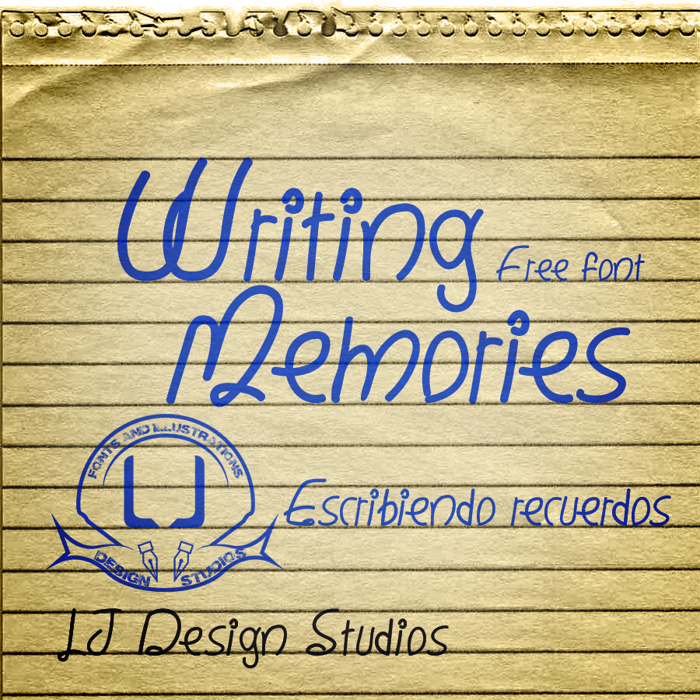
Writing Memories Font
Writing Memories Font is a Handwriting font and was created on . Since then, it has been downloaded 2,120 times and added to 41 collections. 2 people have liked Writing Memories Font and given it a thumbs up.
This typeface was designed to be used on the android platform as variable source for applications, custom font, font or default font recursive device.
Esta fuente tipográfica fue diseñada para ser usada en la plataforma android como variable de fuente para las aplicaciones, fuente personalizada, fuente recursiva o fuente predeterminada del dispositivo.